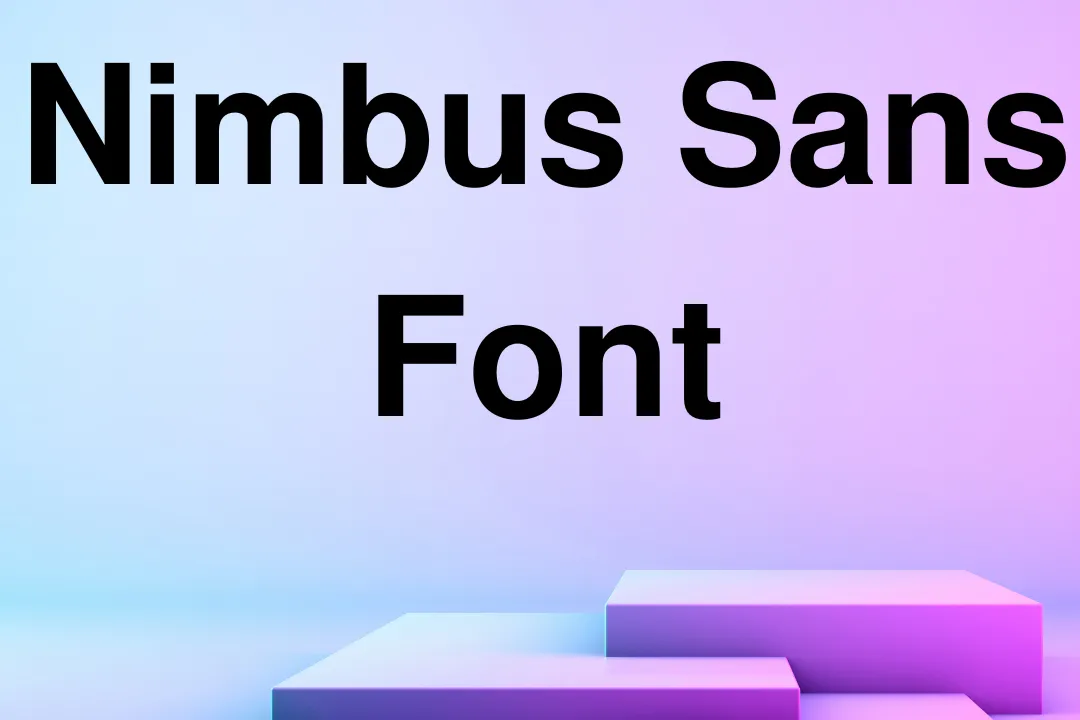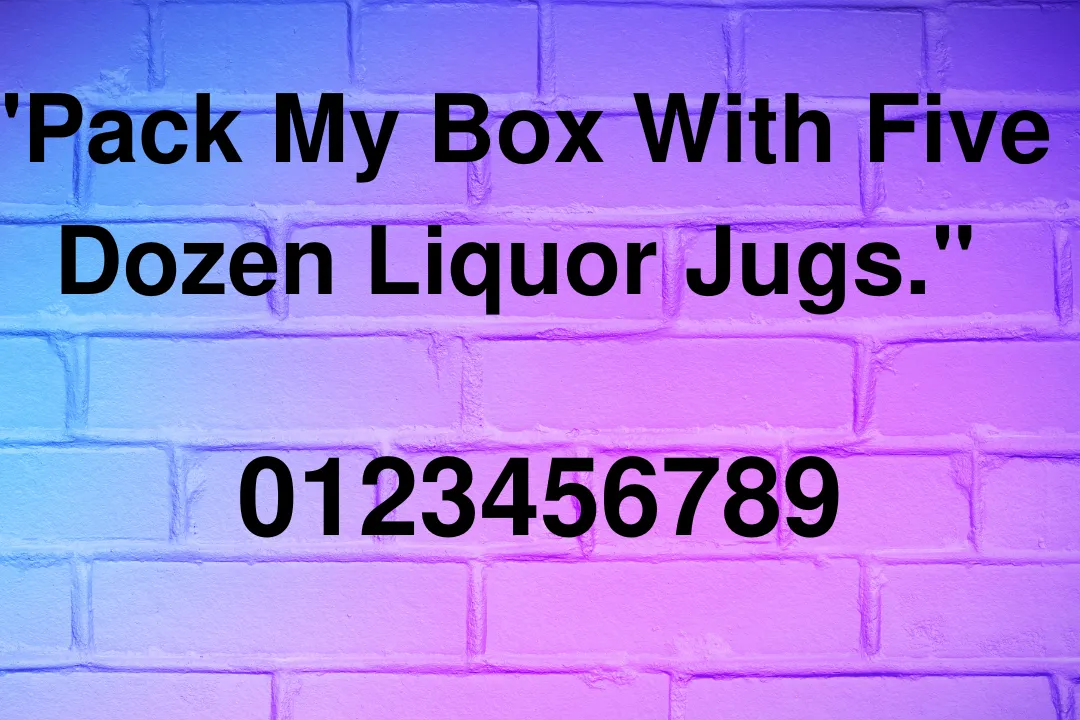
Nimbus Sans Font
Today, we present to you a modern font family Which is known under the name of Nimbus Sans Font. This typeface is from the sans serif family. The font is designed by URW++. This pleasing typeface is available in four weights, from dawning to black.
One more classic feature of this family is it comes in 59 wonderful styles and TTF format. This font family has been used extensively throughout the years by many companies and organizations.
Uses of Nimbus Sans font
This remarkable typeface is useful in an expansive mixture of methods according to users’ needs. If you are an expert graphic designer use this family for many creative tasks like brochures, infographics, logos, and advertising.
It is perfect for those times when you want to add a touch of elegance to your work. If you want to build a very gorgeous website, so you can use this font to create beautiful websites. This typeface is also great for creating print materials like flyers and posters.
You will be able to use Nimbus Sans font for making different business works reports and presentations on different topics. It is perfect for public transportation systems.
What type of font is Nimbus Sans Font?
This stylish font is a sans serif typeface with a classic look. It has been designed to be used in a wide variety of projects.
Can I use Nimbus Sans Font for my designs?
Yes, you can use this family for all of your projects. It will help you create many classic designs.
What is the closest font to the Nimbus Sans Font?
The closest of this wonderful typeface is Nexa Font that is also best for pairing with it.